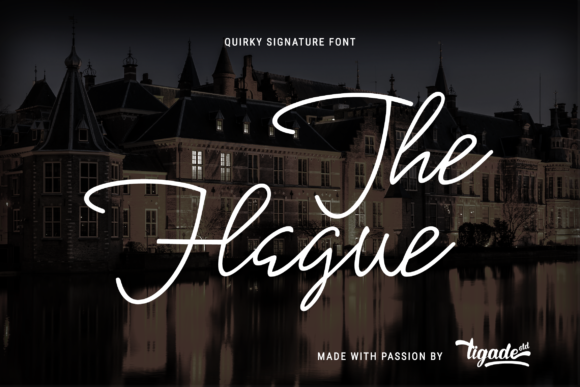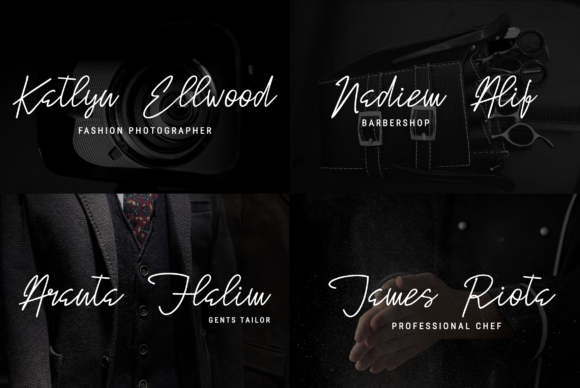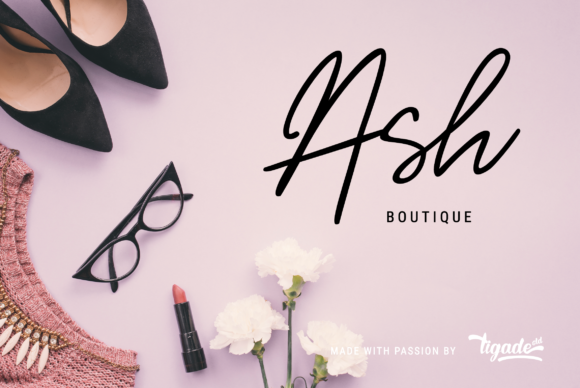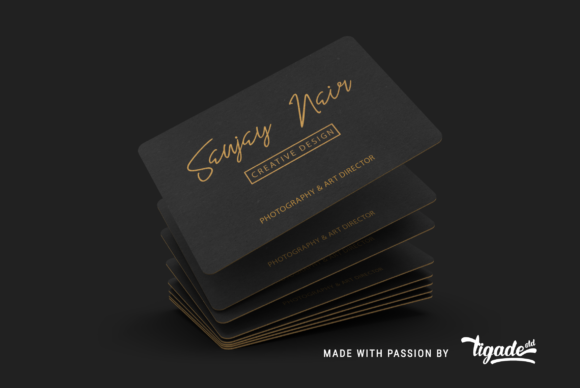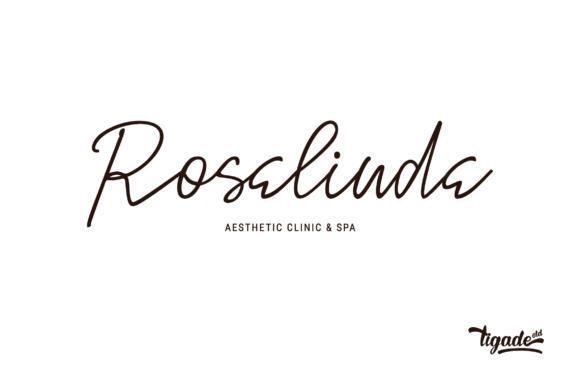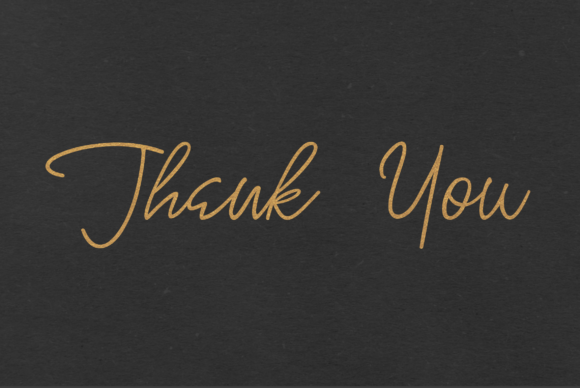
The Hague Font
About The Hague Font
The Hague is a simple and incredibly relaxed handwritten font. It looks stunning on wedding invitations, thank you cards, quotes, greeting cards, logos, business cards and every other design which needs a handwritten touch.